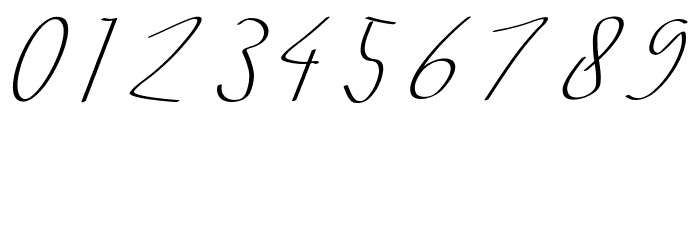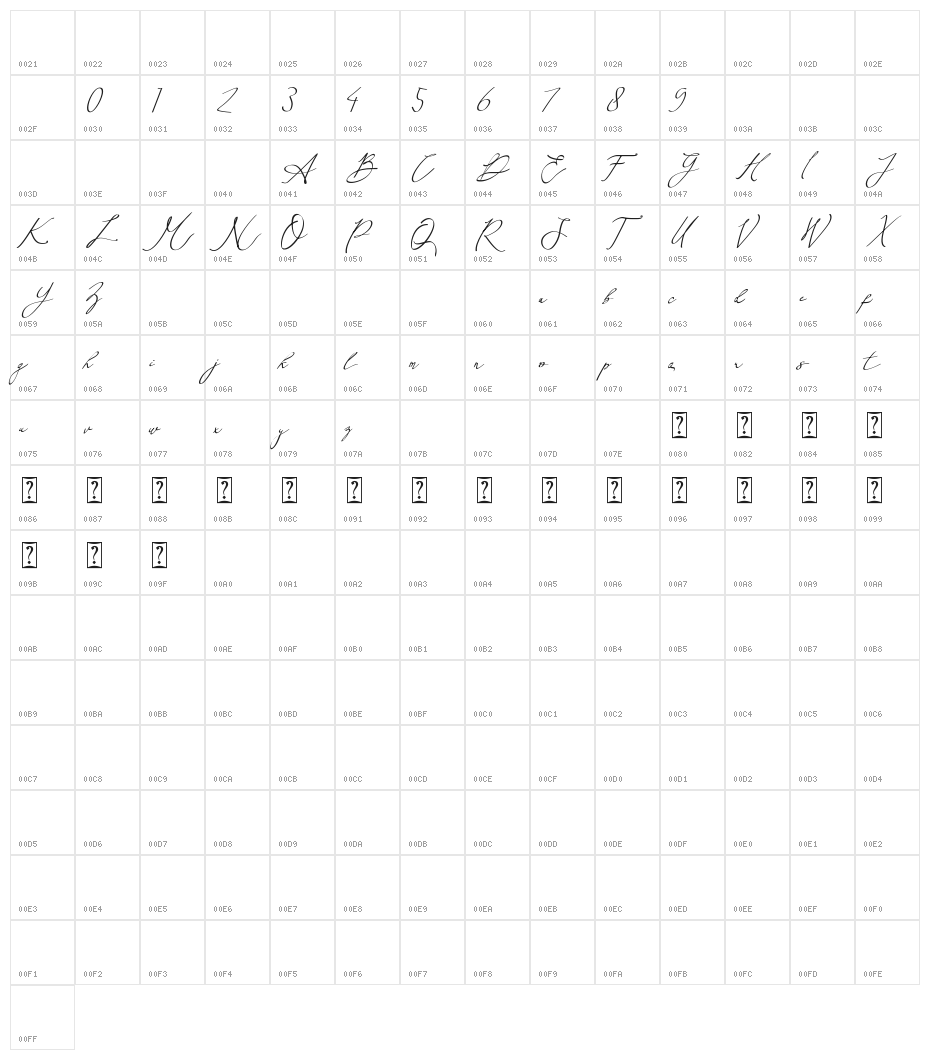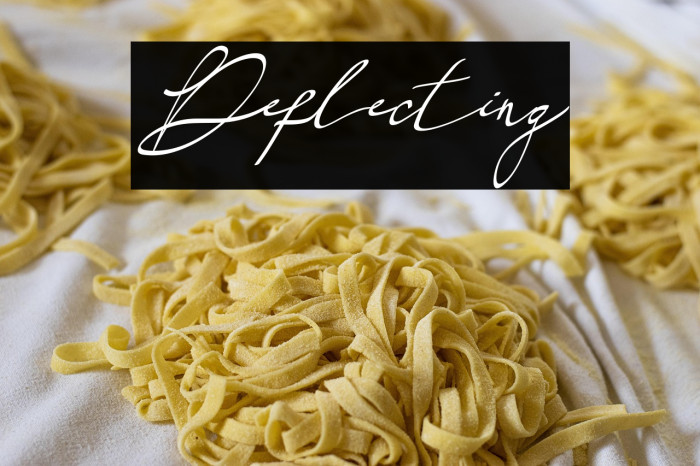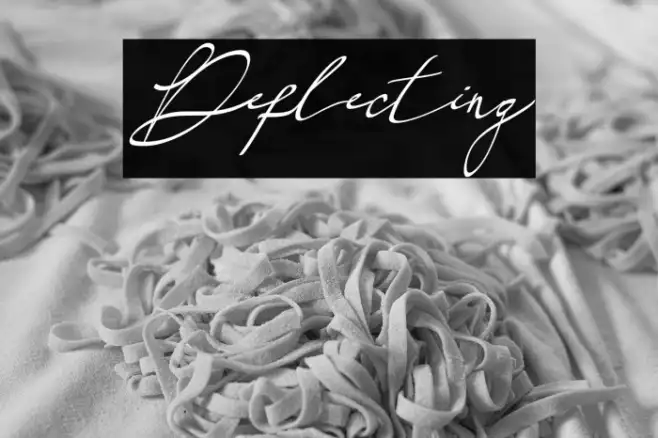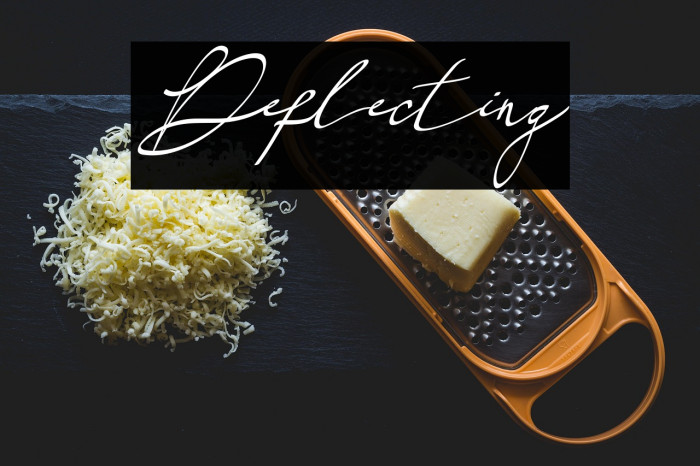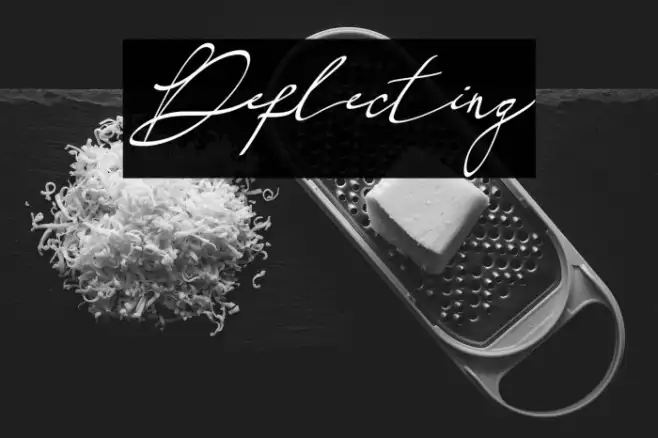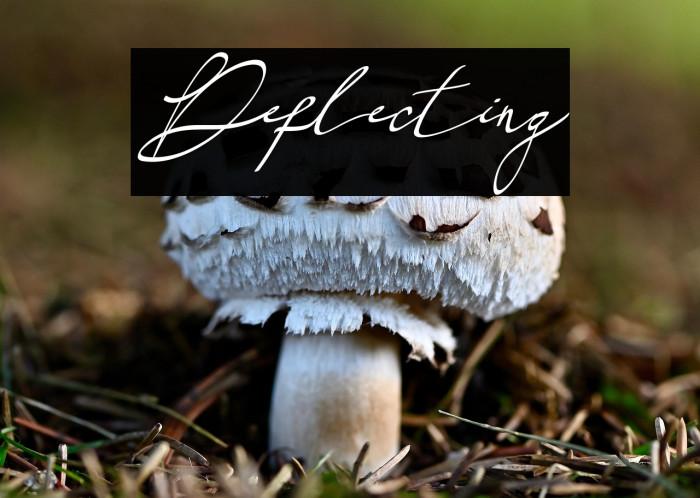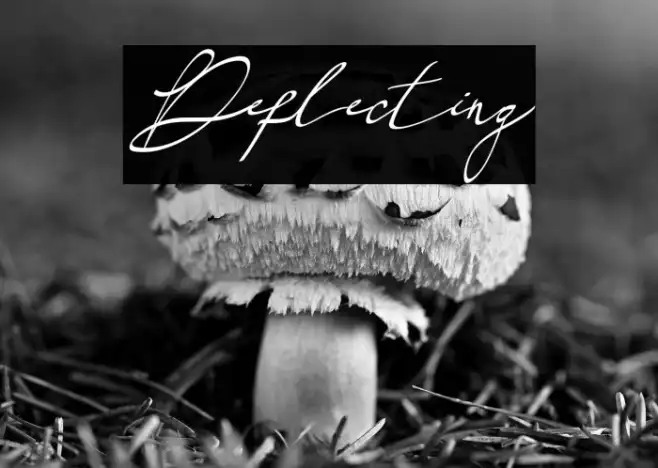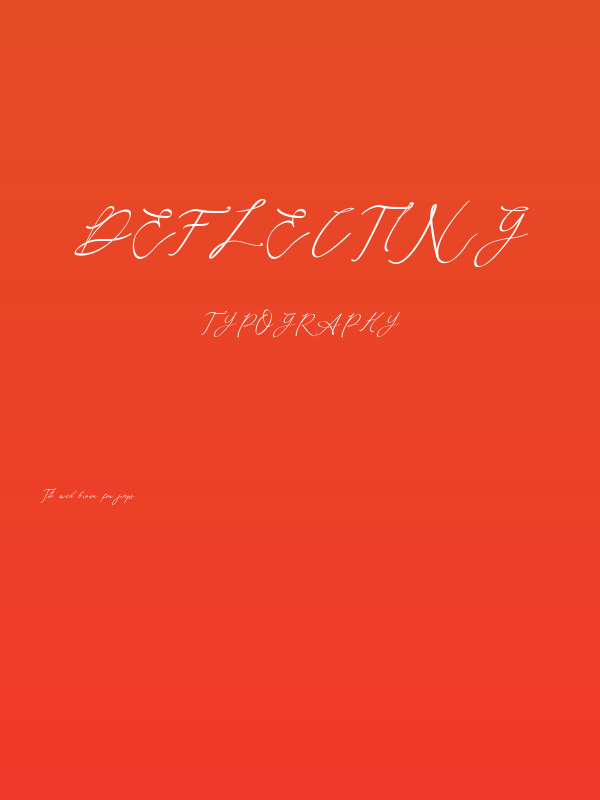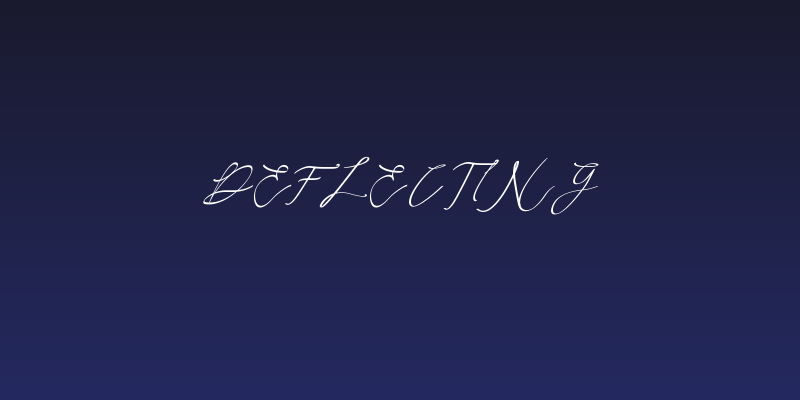
Deflecting Font
Deflecting Description
This elegant script font features fluid, cursive strokes that mimic the natural flow of handwriting. The uppercase letters are gracefully elongated, with sweeping ascenders and descenders that add a touch of sophistication. The lowercase letters maintain a consistent slant, enhancing the font's cohesive appearance. Numbers are styled with the same fluidity, ensuring a harmonious look across all characters. The font's delicate lines and subtle variations in stroke width give it a refined and artistic feel, making it ideal for projects that require a personal or formal touch.
| Overall Style | Elegant, Artistic |
| Proposed Projects | Wedding invitations, greeting cards, personal branding, elegant signage, and formal event programs. |